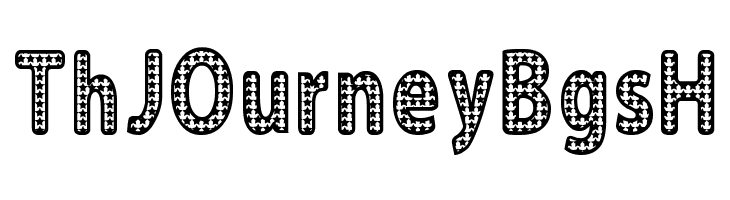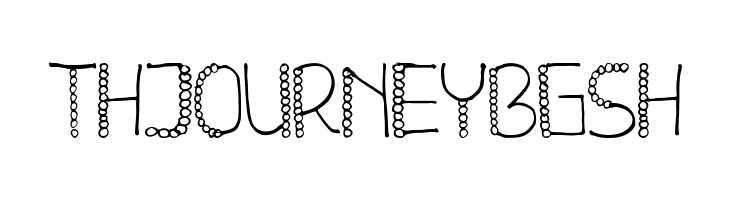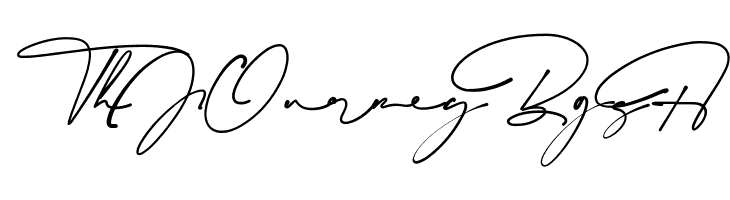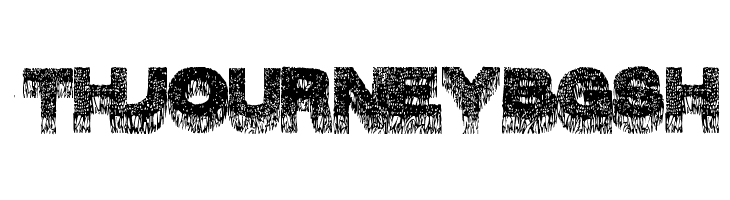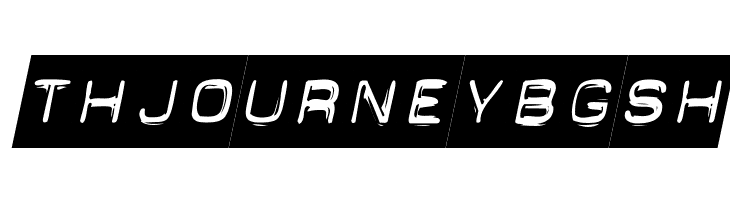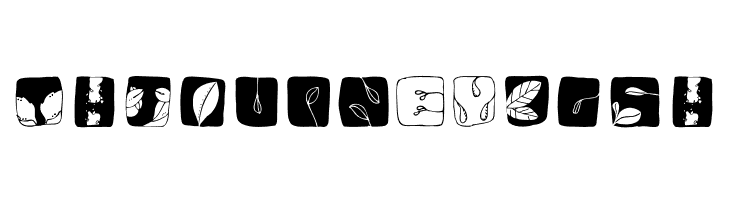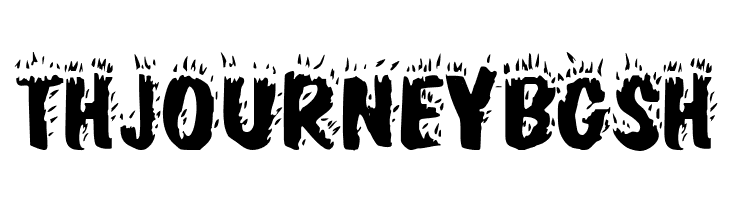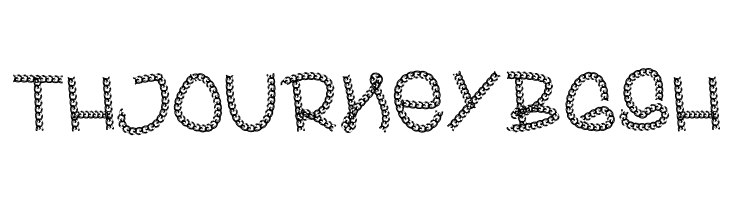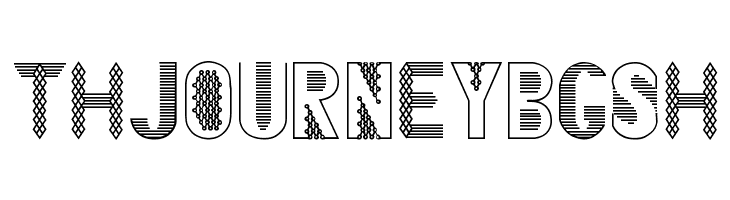
A grunge, hand-drawn font with dynamic, uneven strokes and a distressed appearance.
A geometric, abstract font with thin lines and angular shapes.
A bold, geometric font with a unique shadow effect and modern aesthetic.
A bold, three-dimensional decorative font with intricate line work and shading.
A hand-drawn, textured font with a whimsical and artistic style.
A distressed and grungy font with splattered, irregular edges for a bold, artistic look.
A bold, decorative font with nature-inspired embellishments.
A bold, decorative font with a textured, three-dimensional style.
A bold, grunge-style font with a textured, distressed appearance.
A bold, distressed font with a rugged, vintage look.
A bold, distressed font with a rough, textured appearance.
A bold, distressed font with a grunge aesthetic and rugged, weathered characters.
A bold, playful handwritten font with thick strokes and a casual style.
A decorative font with butterfly-like, ornate characters.
A bold, edgy font with sharp, angular edges and a distressed look.